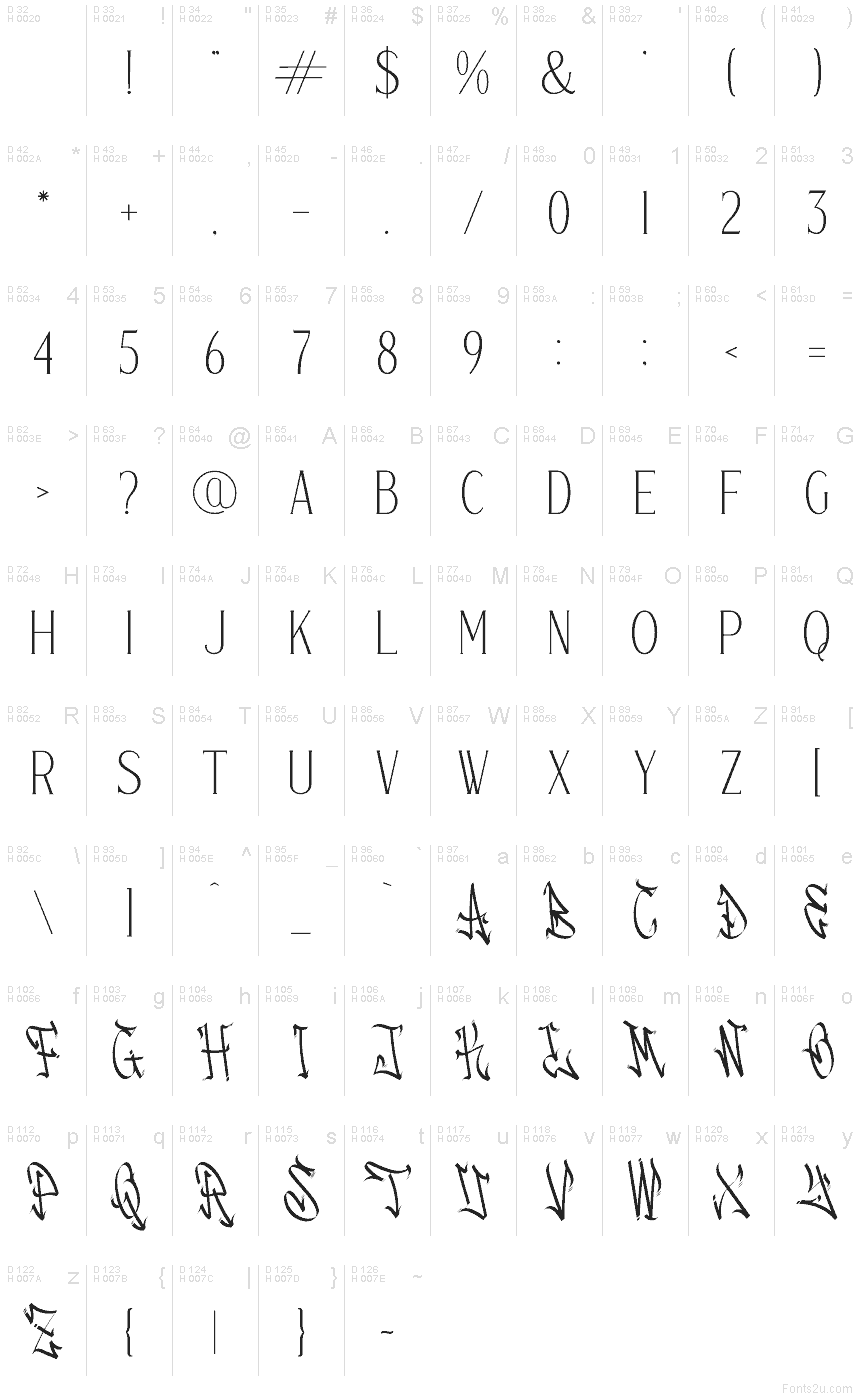
Gravity Ventore
Gravity Ventore font by Storytype Studio is a graffiti-inspired typeface with a rebellious, edgy aesthetic. The condensed font has an urban influence and combines artistic flair with contemporary ideas. The letters have an outlined effect completed in all caps.
The free display font has been designed for contemporary applications in street art and music branding. Use Gravity Ventore for clothes branding, streetwear posters, magazines, song lyrics publication, urban-themed site headers, gaming apps, and athletic gear branding. Additionally: music album covers or tattoo designs.